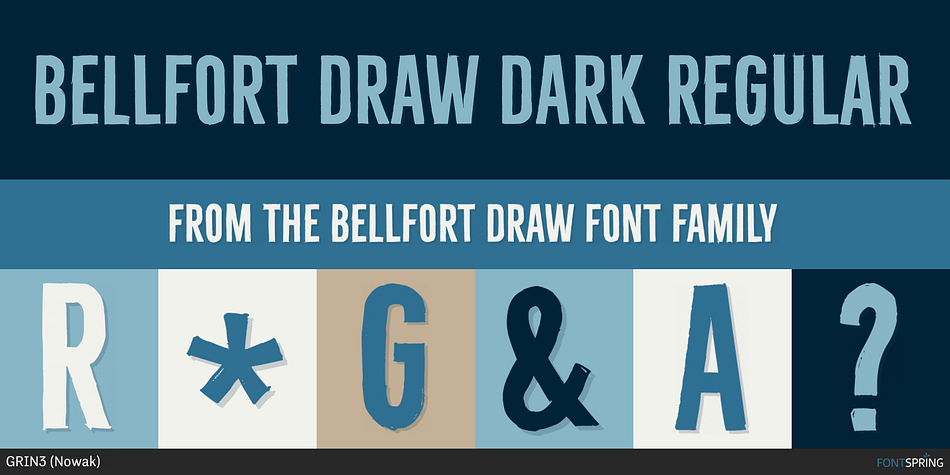
Bellfort Draw Dark Regular
Designed by Bartek Nowak, Bellfort Draw is a script and hand display font family. This typeface has thirteen styles and was published by GRIN3 (Nowak).
Bellfort Draw family is a hand-drawn version of Bellfort family. It features 5 different sub-families: Regular, Rough, Hollow, Dark, Script. Each of these sub-families contains up to three font weights.
When the font is used in OpenType-savvy applications, the 3 variants of glyphs are automatically alternated to achieve a random-like effect.
When not using the Contextual Alternates feature, you can still pick the alternates in the Glyphs palette or use the alternates available from the keyboard upper and lower case.
Bellfort Draw Script is a handwritten, fully connected script with ligatures and contextual alternates to help with flow and readability.
Language support includes Western, Central and Eastern European character sets, as well as Baltic and Turkish languages.